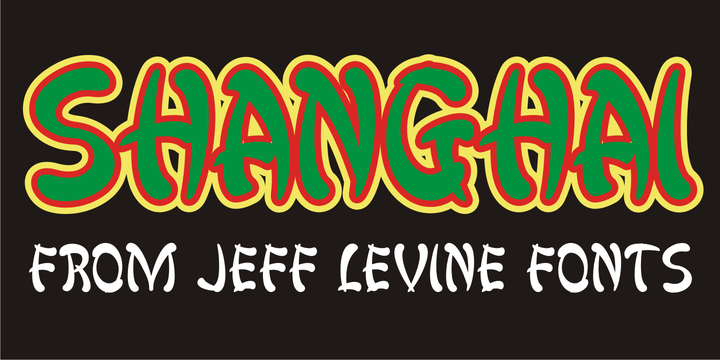
Shanghai JNL
by Jeff Levine
The Shanghai JNL Font Family was designed by Jeff Levine and published by Jeff Levine. Shanghai JNL contains 1 styles. More about this family
Shanghai JNL is loosely based on the title lettering from “Charlie Chan in Shanghai”, one of the long-running series of detective films featuring the Asian sleuth and his “number one son”.